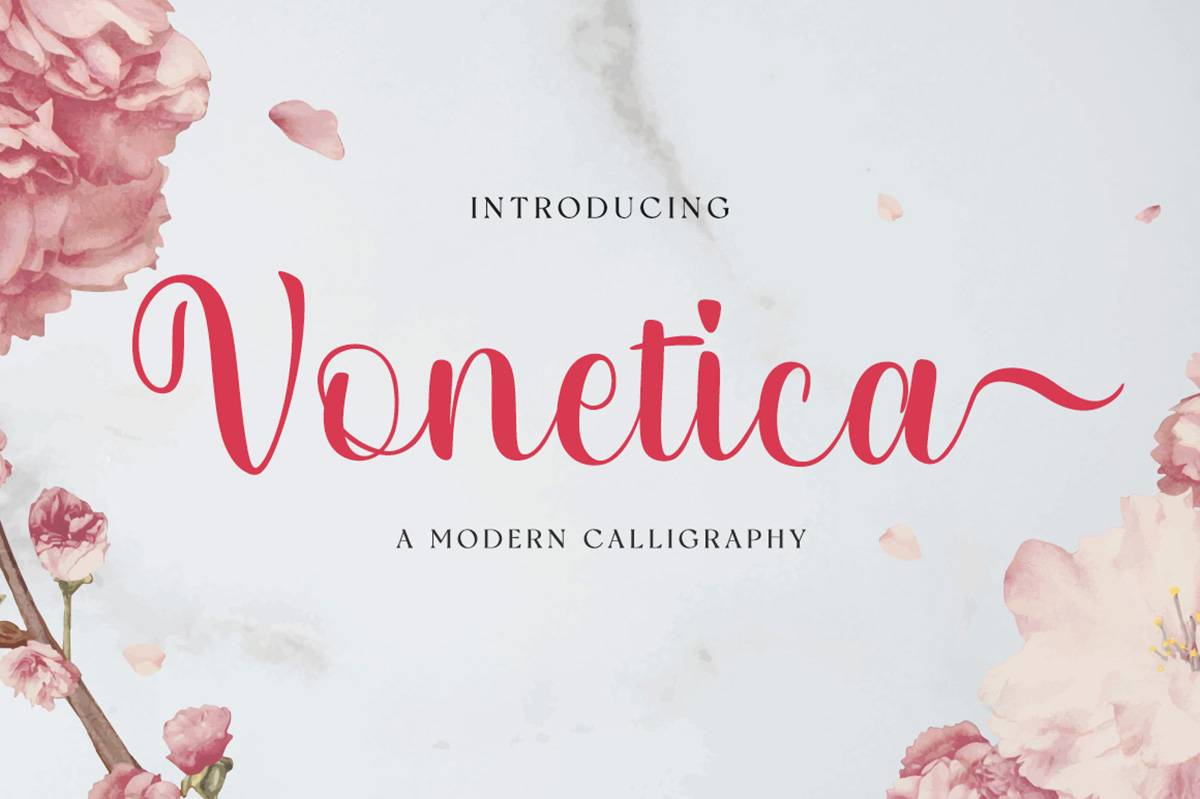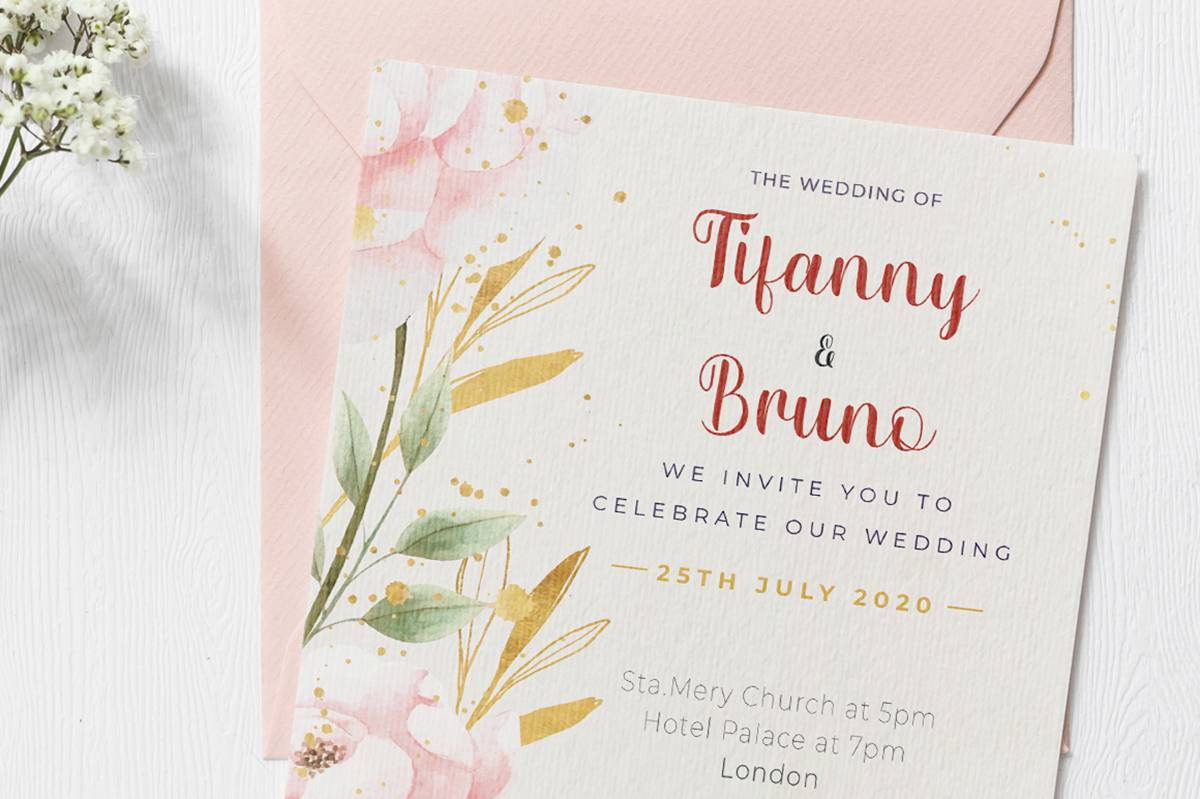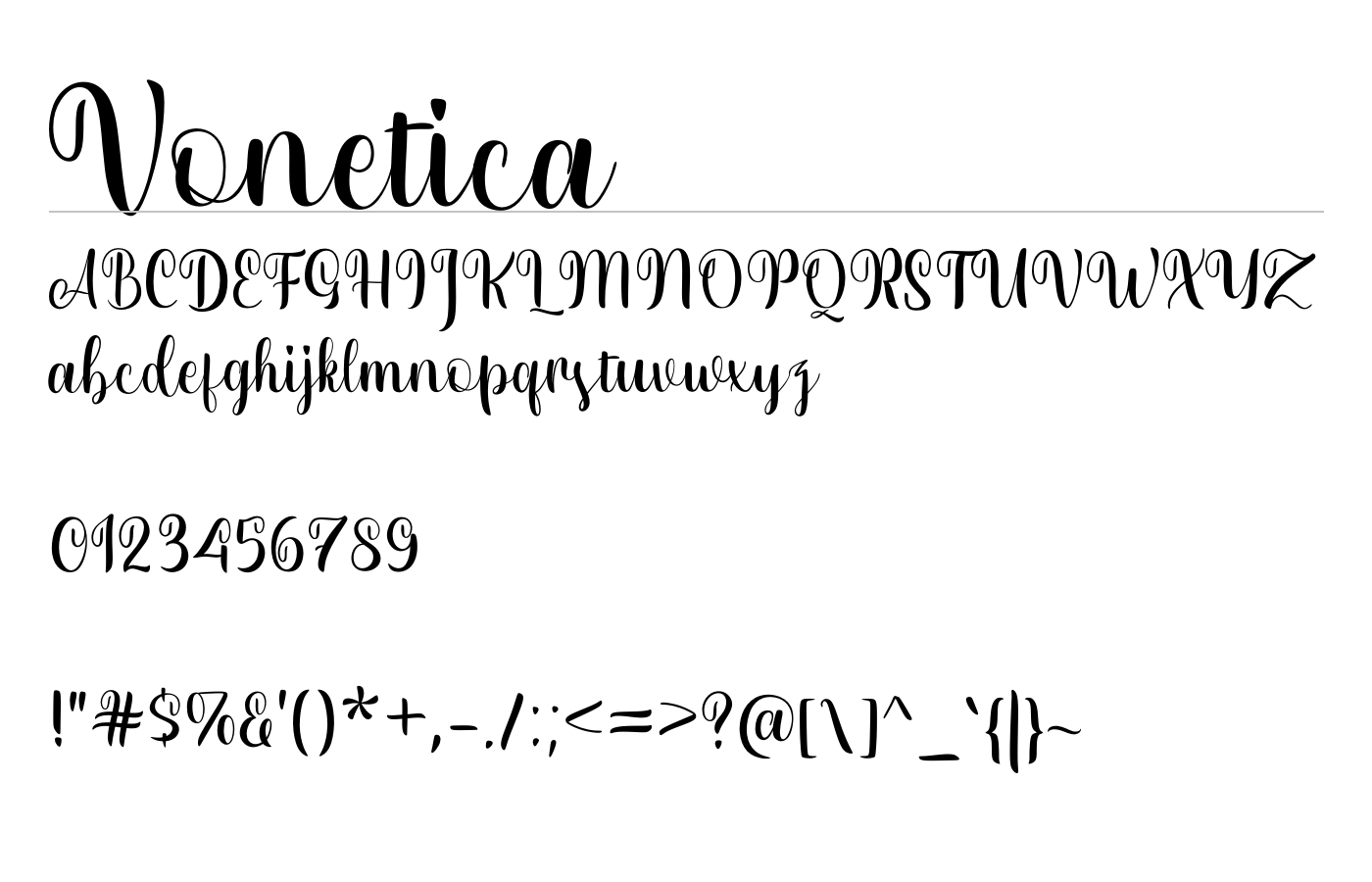
Vonetica Script is an elegant and playful script font characterized by its smooth, flowing curves and distinctively tall, narrow letterforms. With its moderate contrast and charmingly rounded strokes, this font offers a modern yet whimsical feel, making it perfect for invitations, branding, and decorative headlines that seek a friendly but refined touch. Its clear uppercase and lowercase forms, along with stylish numerals and punctuation, ensure versatility in creative and feminine design projects.
Vonetica Script Font
About Vonetica Script Font